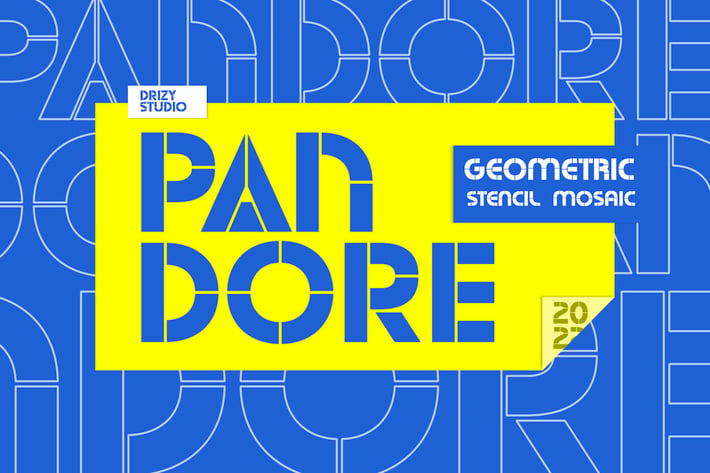
Pandore - Geometric Stencil Font
Pandore is a Geometric Stencil Font from Drizy Studio. Offering all the styles you need for your projects.
Pandore features:
Punctuation & Numbers
Alternates